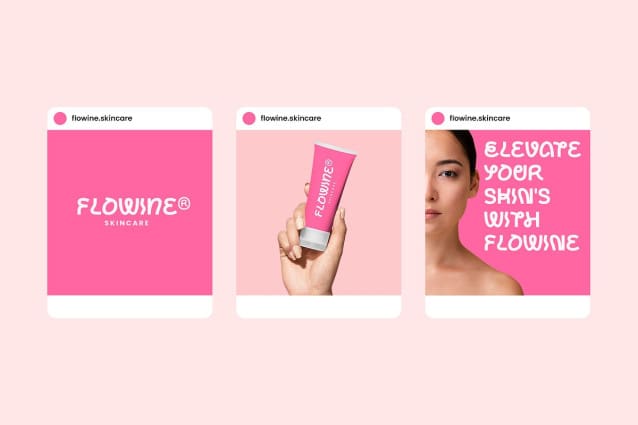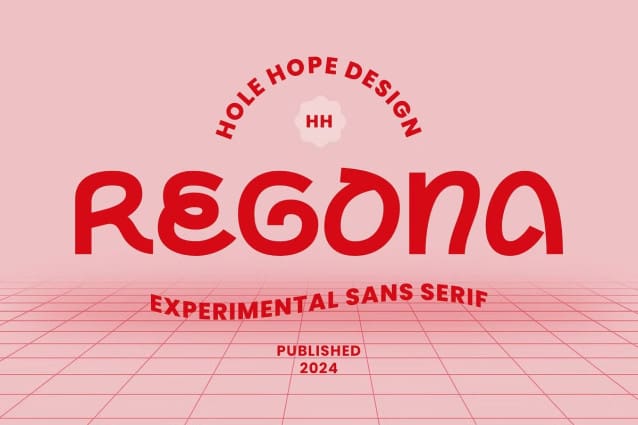
Regona Font
Regona Font is a cutting-edge and avant-garde experimental sans-serif font that pushes the boundaries of traditional typography. Crafted with precision and innovation, this typeface seamlessly blends modern aesthetics with a Romance – Valentine Movies vibes, making it a truly unique and eye-catching choice for creative projects.